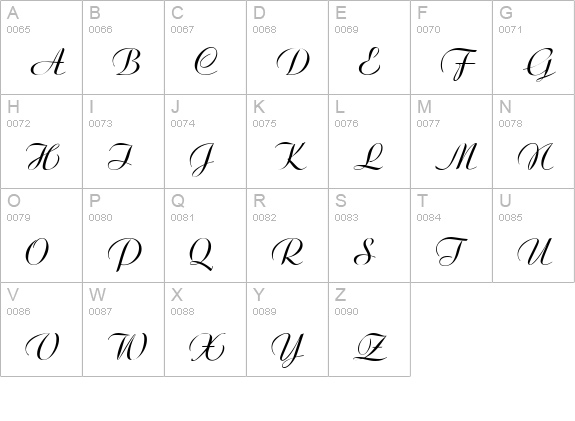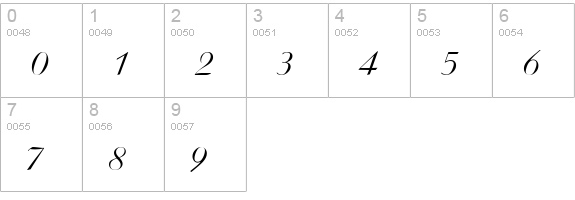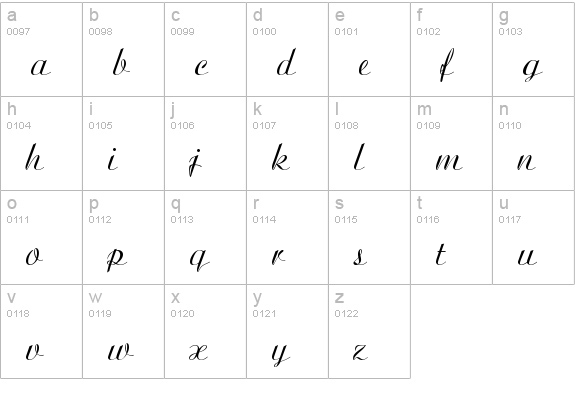
Artistic-Regular Font Details
Artistic-Regular is the standard, neutral variant in the Artistic typeface family \xE2\x80\x94 well suited to general body text, paragraphs, and standard typographic work.
Artistic-Regular font is a captivating and versatile typeface that exudes creativity and elegance. With its unique artistic flair and modern aesthetic, this font is perfect for a wide range of design projects, from branding to editorial design. The clean lines and balanced proportions of Artistic-Regular make it easy to read while still maintaining a sense of artistic expression. What sets Artistic-Regular apart is its ability to seamlessly blend into various design styles, adding a touch of sophistication and charm to any project. Whether you're working on a logo, website, poster, or any other creative endeavor, this font will help you make a lasting impression. Best of all, Artistic-Regular is available for free download at FontsMarket.com, making it accessible to designers of all levels. Don't miss out on the opportunity to add this stunning font to your collection and elevate your design work to new heights.